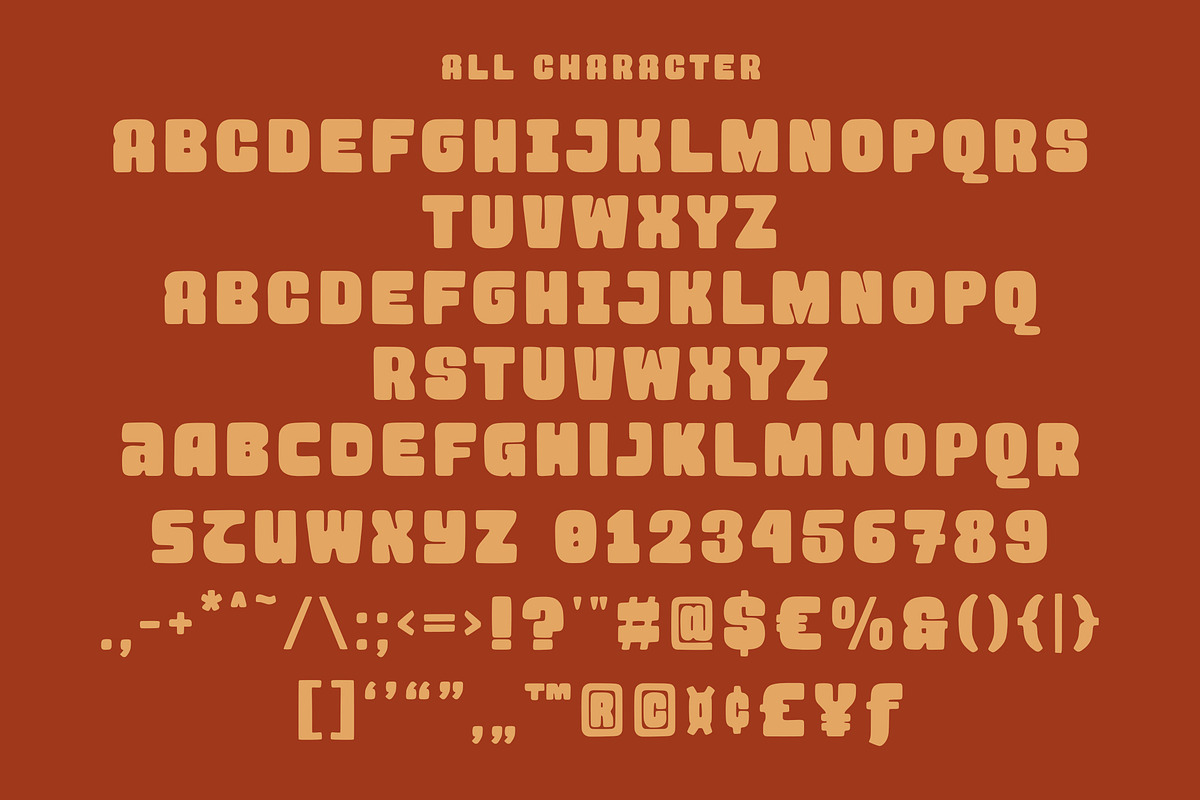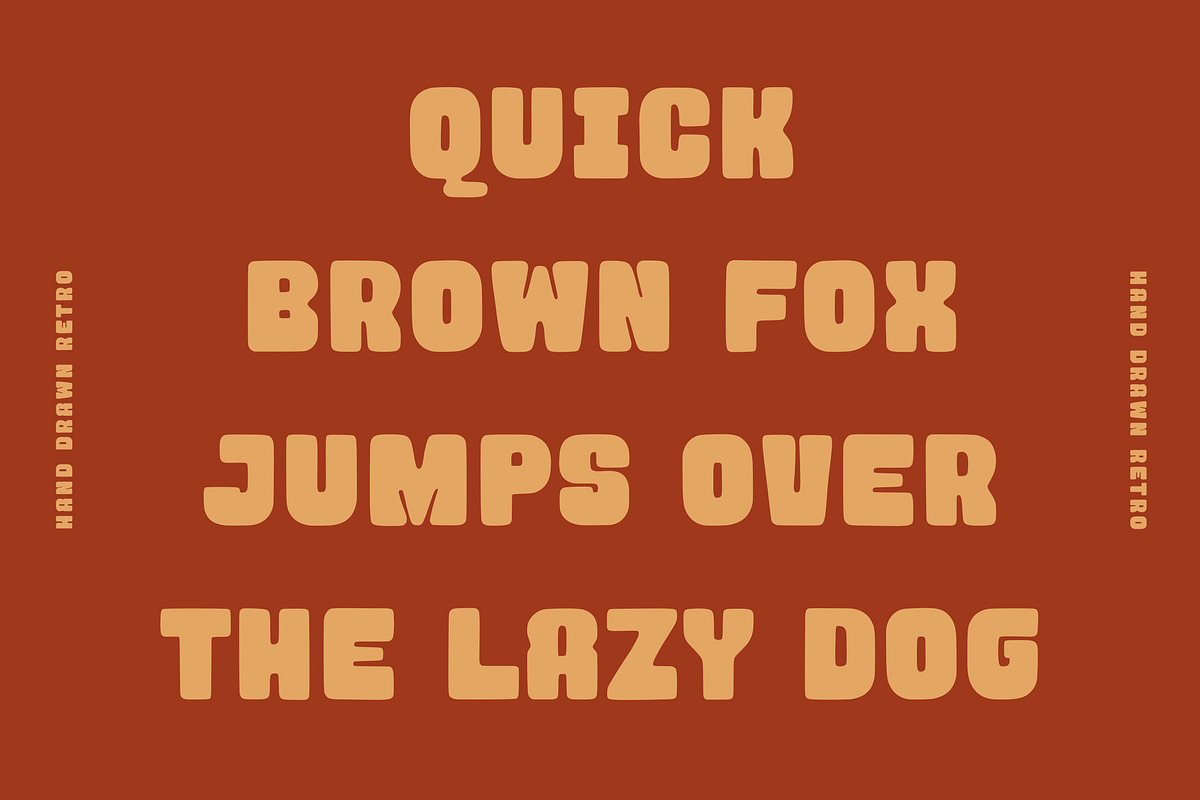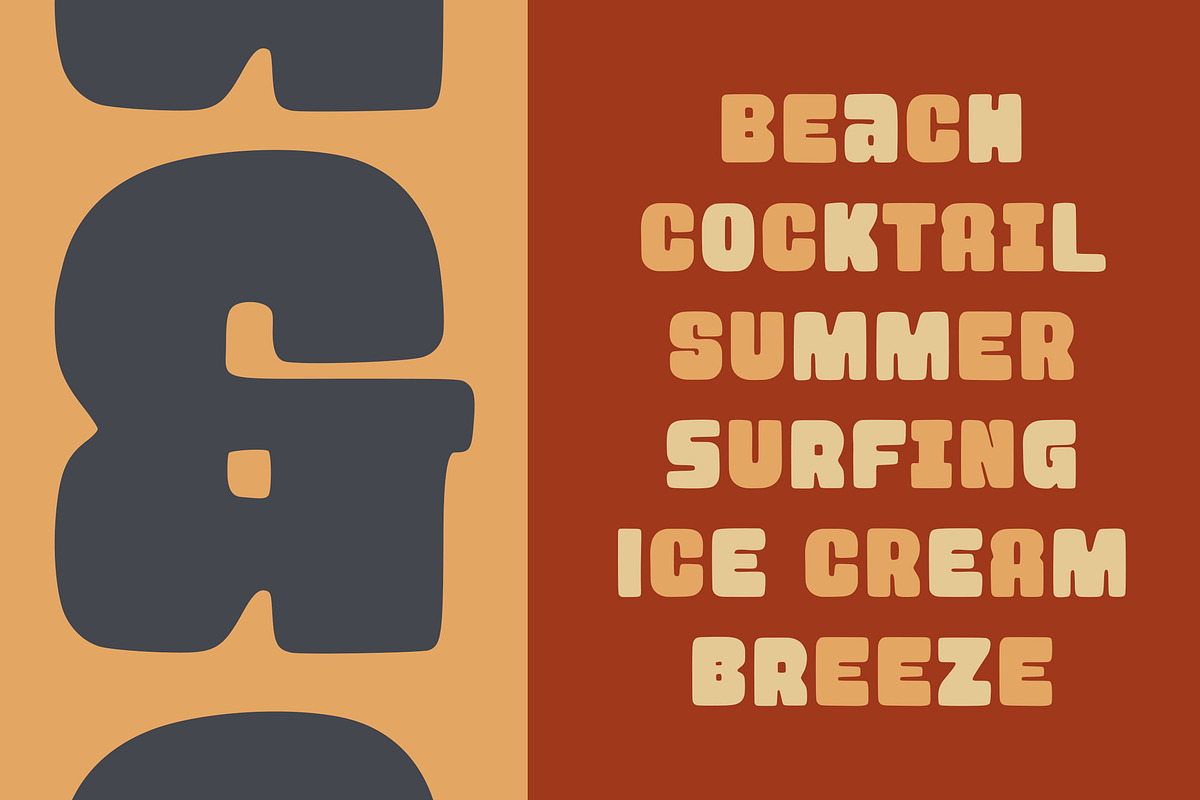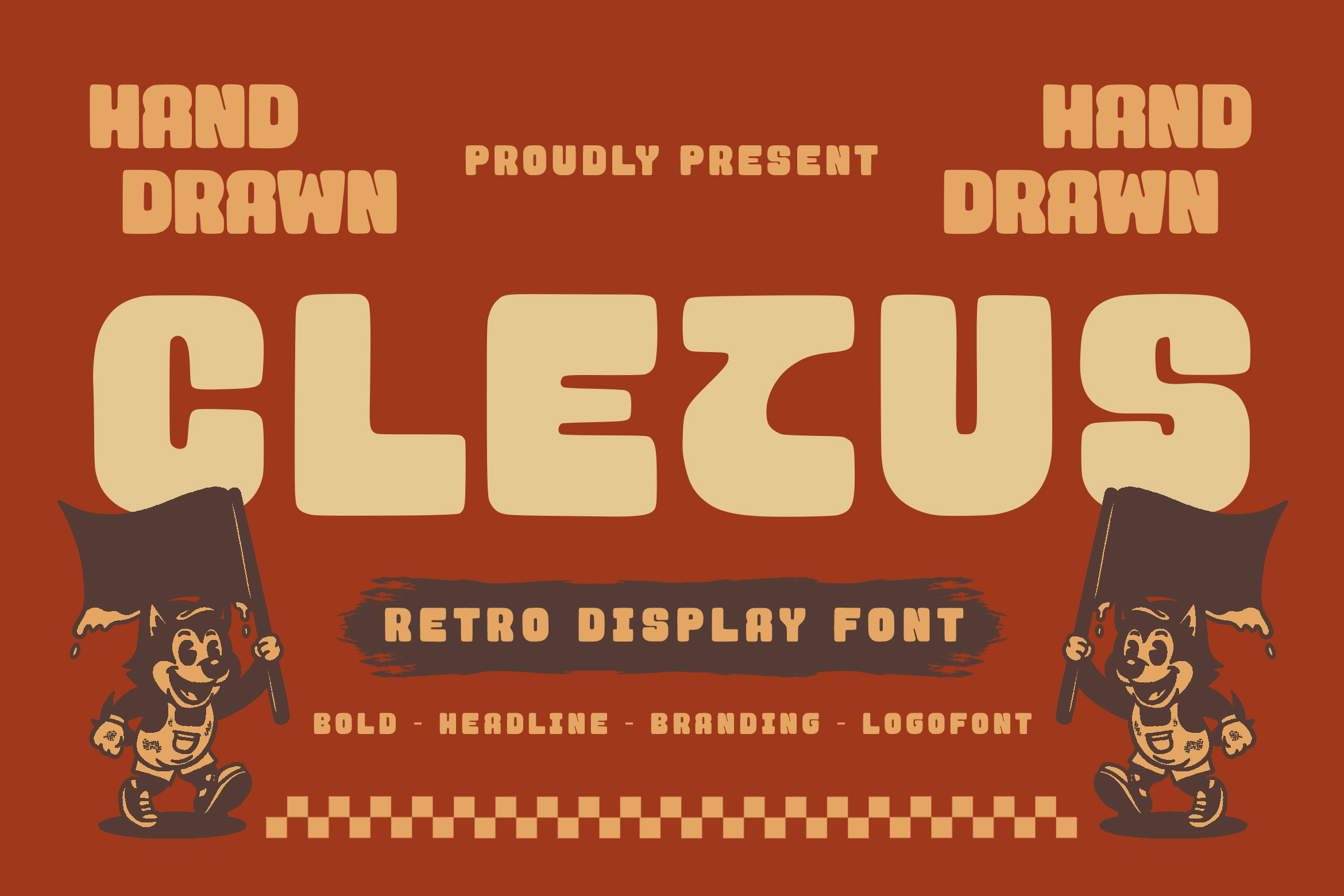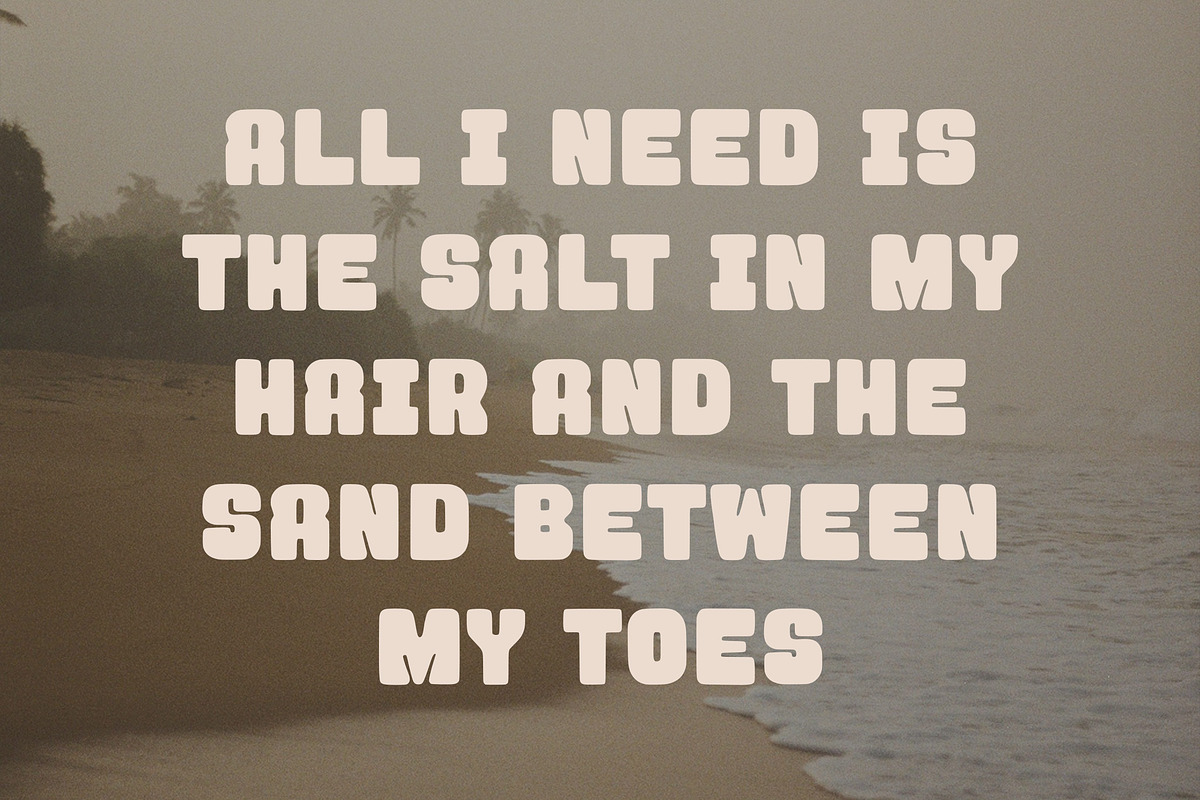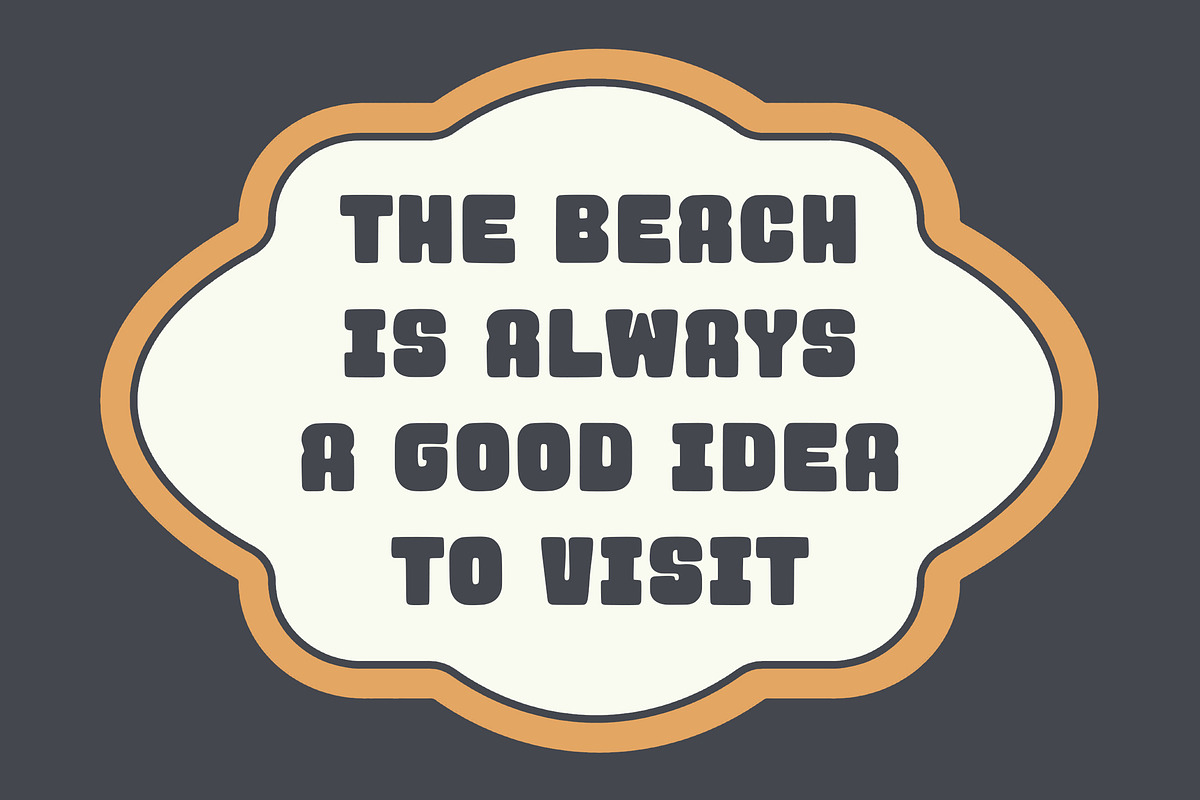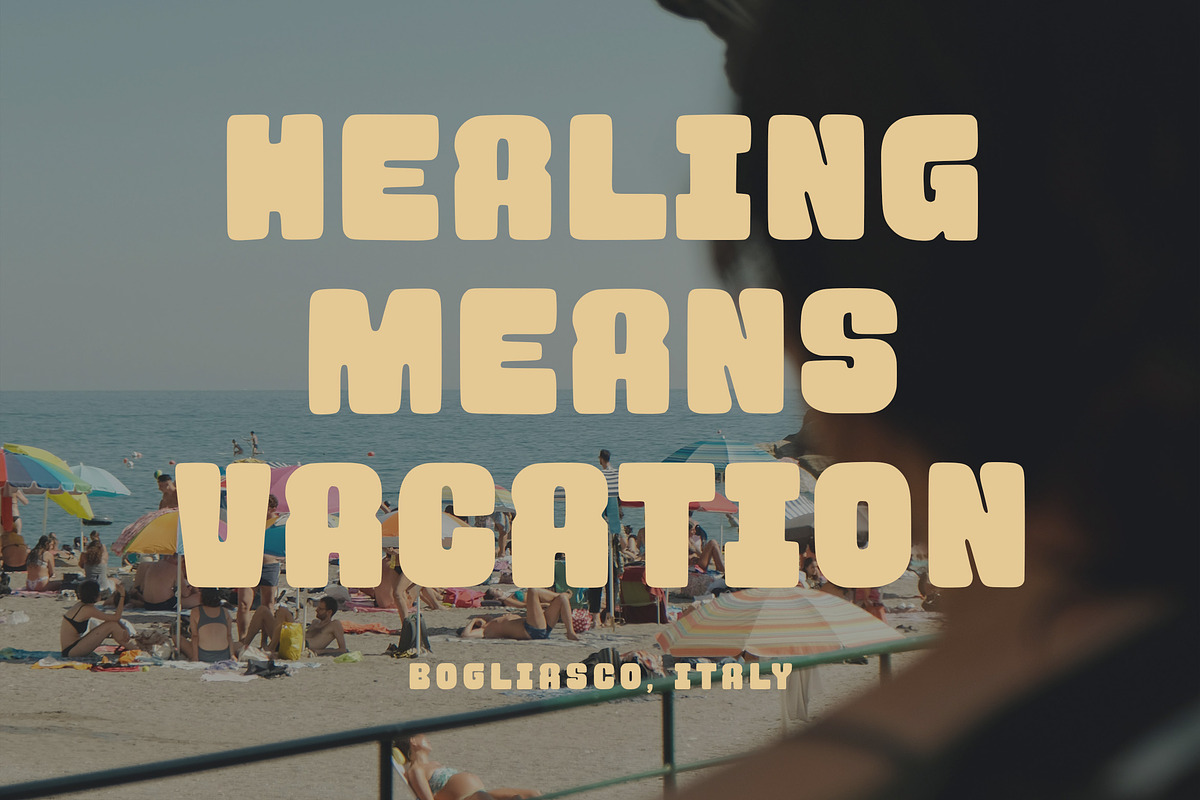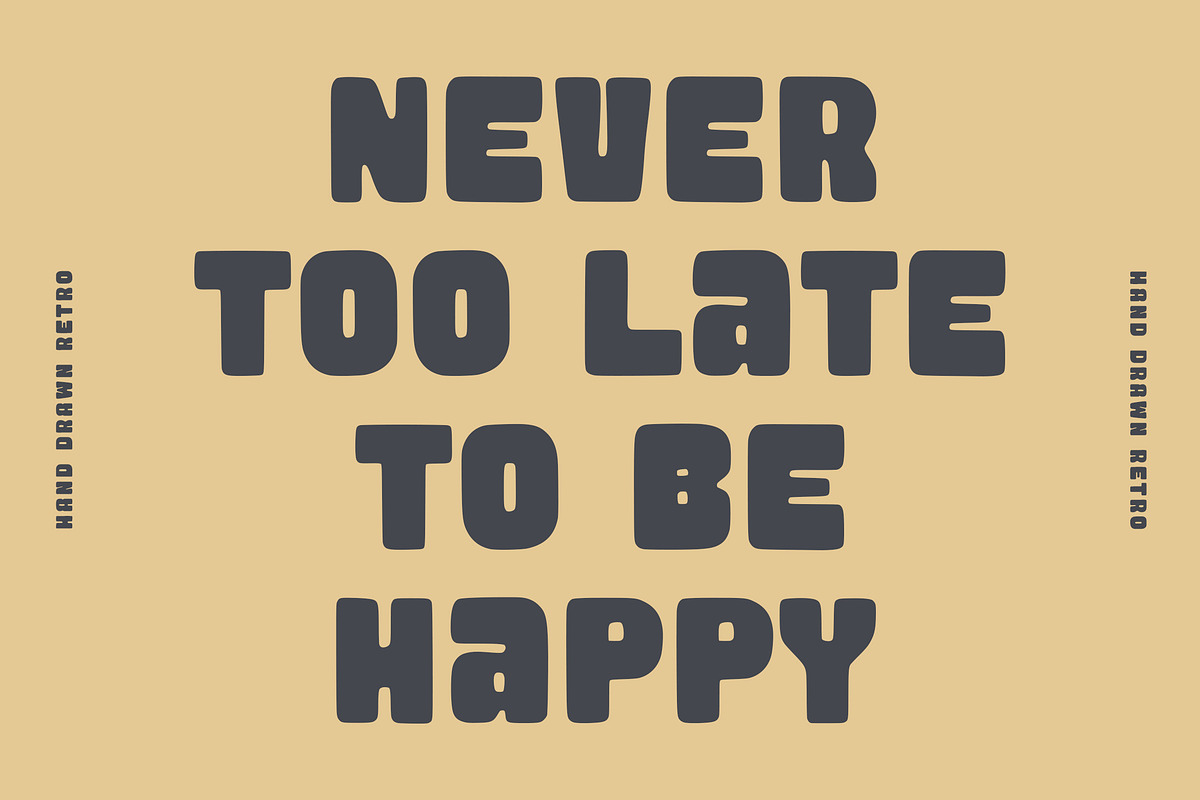
Cletus - Display Font
Cletus – Hand Drawn Retro Display Font
Cletus is a bold, hand-drawn retro display font with playful character and nostalgic charm. Perfectly suited for headlines, branding projects, vintage logos, packaging, and more, this font brings a touch of personality and fun to every design. Its chunky, rounded letterforms and cartoon-style accents evoke a classic Americana feel, making it ideal for projects that need a retro punch with handcrafted authenticity.
* Uppercase Letters
* Numbers & Punctuation
* Unique Hand-Drawn Style
* Perfect for Logos, Posters, Apparel & Packaging
Unleash the vintage spirit with Cletus and give your designs that bold retro flair!